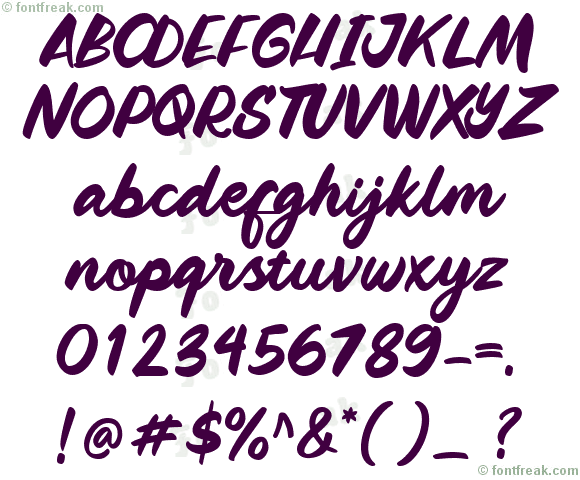
River Script
River Script, designed by Situjuh Nazara in 2019, is a captivating script font that emanates elegance and fluidity. This typeface showcases a beautiful handwritten style, characterized by its smooth curves and fluid strokes. The stroke weight is moderately contrasted, providing a sense of balance between boldness and delicacy. The letters are well-spaced, allowing for clarity and readability, while the decorative elements add a touch of artistry, making it ideal for various creative projects.
River Script is particularly well-suited for wedding invitations, where its romantic flair can enhance the overall aesthetic. It also shines in branding materials for cafés and restaurants, lending a warm and inviting feel to menus and signage. Additionally, this font can elevate greeting cards and social media graphics, making it an excellent choice for content creators looking to add a personal touch to their designs. Graphic designers will appreciate its versatility, as it seamlessly adapts to both digital and print formats.
The target audience for River Script includes graphic designers, small business owners, and content creators who seek to infuse their work with a sense of personality and charm. The font's freeware license makes it accessible to a broader audience, encouraging experimentation and creative exploration.
What sets River Script apart is its unique blend of elegance and approachability, creating a perfect balance for any design project. Its artistic flair, combined with its readability, makes it a standout choice for anyone looking to make a memorable impression. For those interested in enhancing their typography collection, the River Script font free download is an opportunity not to be missed. This font is sure to inspire creativity and bring projects to life with its enchanting style.